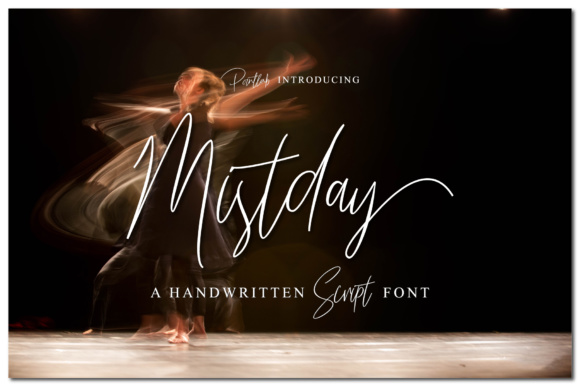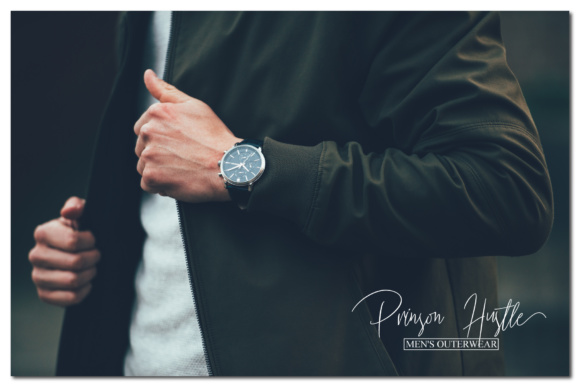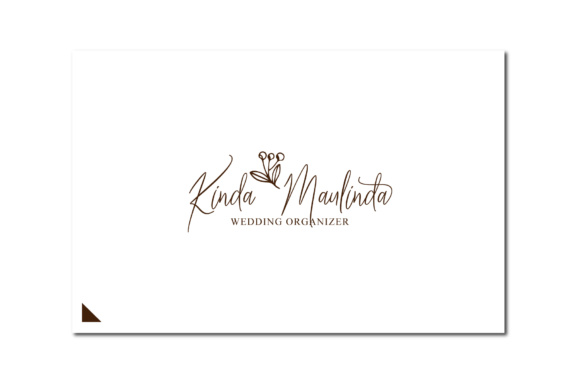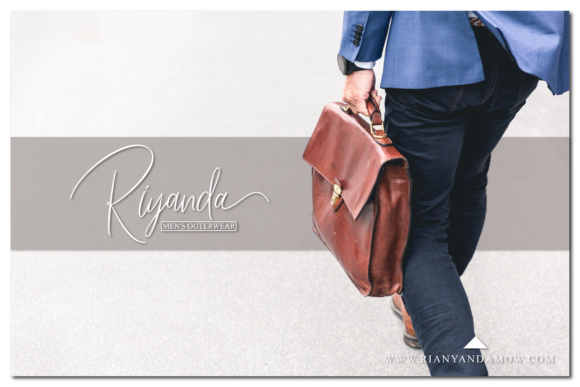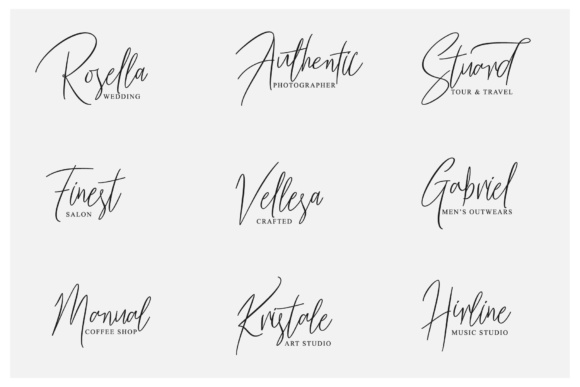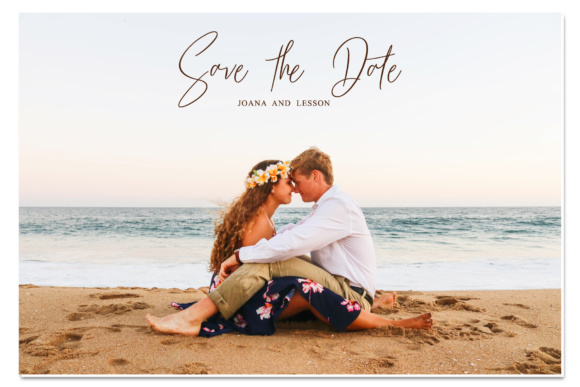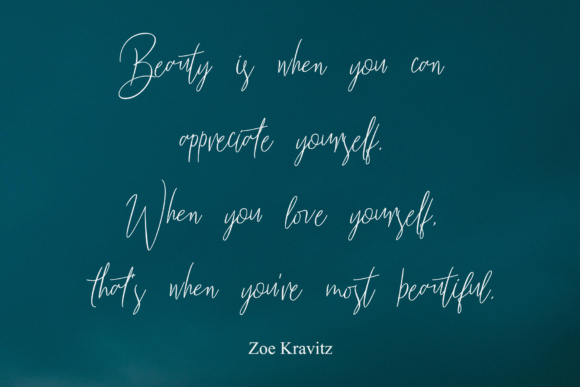
Mistday Font
About Mistday Font
Mistday is a modern handwritten script font with tons of elegance and style. This signature font has beautiful movement to it, and can add some classiness to any type of design.